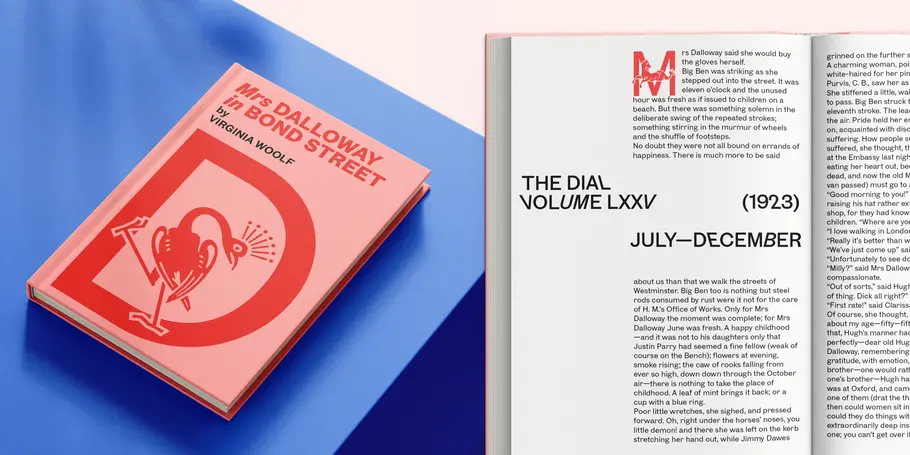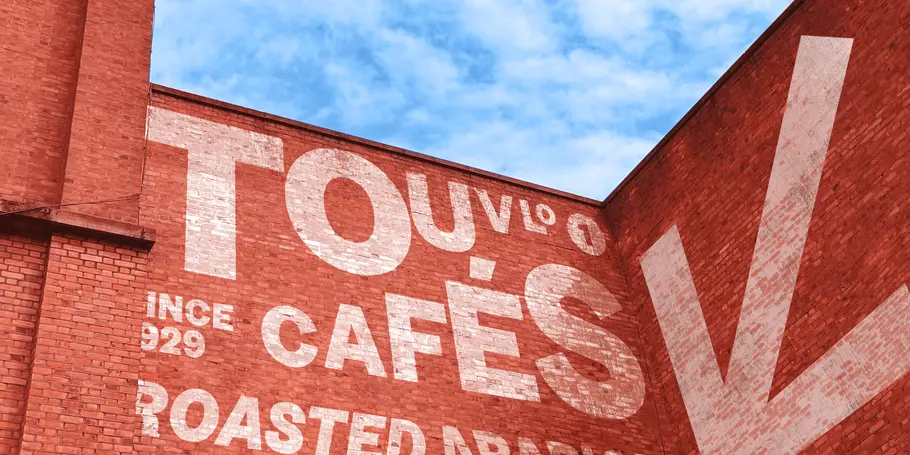
Touvlo™
Touvlo is a zestful, modern interpretation of a classic genre, skillfully capturing the spirit of early British grotesque typefaces while letting its own lively personality and energy shine.
With a total of 24 weights in 3 styles across 3 variable fonts, Touvlo’s variety adds flavor to any contemporary environment, and can withstand complex typographic layouts or unexpected and peculiar settings.
New from the Monotype Studio’s Creative Type Director, Emilios Theofanous, Touvlo –meaning brick in Greek– is an homage to London and the view from his studio window. A zestful, modern interpretation of a classic genre, Touvlo skillfully captures the spirit of early British grotesque typefaces through playful terminals and lively curves.
Touvlo offers an array of styles, from clean uprights to characterful Italics, and exuberant Backslants. Its regular upright weights are optimized for long text, with prominent and visible vertical contrast, creating rhythm and texture for comfortable reading. The Italics are designed to be visibly distinct, with narrower proportions and calligraphic shapes, offering brightness and emphasis wherever needed. The Backslants are an unexpected and energetic addition, providing an element of surprise while following similar design choices as the Italics, packing a particular punch.
With a total of 24 weights in 3 styles across 3 variable fonts, Touvlo’s variety adds flavor in any use case, and can withstand complex typographic layouts or unexpected and peculiar settings. Touvlo’s weights range from Thin to Black, giving it an expressive edge for headlines. Its lyrical Drop caps are the finishing touch, featuring exquisite birds and creatures inspired from ornaments found in type specimen books.
Touvlo’s spirit is radiant; becoming more than a voice; a reimagining of a classic genre and a must have for every designer’s typographic palette.
Born in Cyprus, Monotype Creative Type Director Emilios Theofanous, has a soft spot for quality Greek and multilingual typography. Since joining Monotype, Emilios has worked on many custom typeface projects for clients across fashion, banking, retail and automotive sectors, as well as some iconic Monotype Library releases including Helvetica Now Variable.